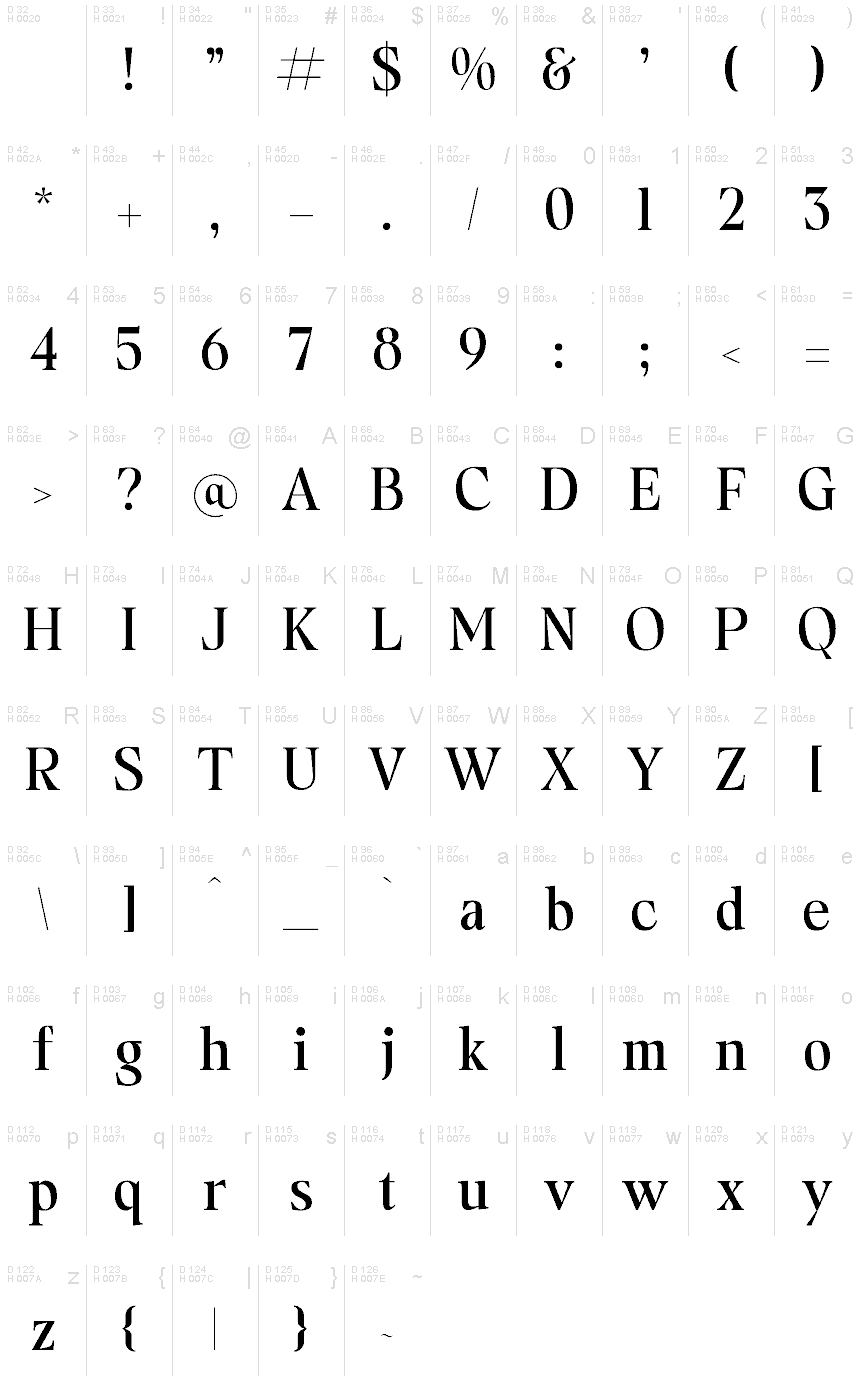
Frenstyle
Frenstyle font is a quintessential serif font by Storytype Studio, classical in its entirety and refined in style. With its elegant appearance, this typography creates sophisticated atmospheres that present it as a modern font with traditional influence. Frenstyle features thick and clearly displayed characters with intersecting thinning lines that allow for contrast.
With such a simplistic and fabulous appearance, this free serif font can be used for branding designs, magazines, social media posts, texts on posters/flyers present for an older crowd or a different area of boutiques like cosmetic shops or museums of natural history.